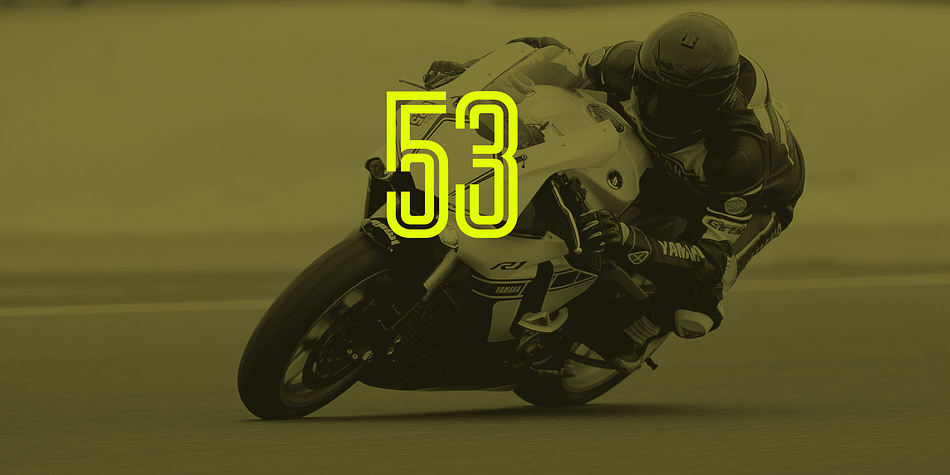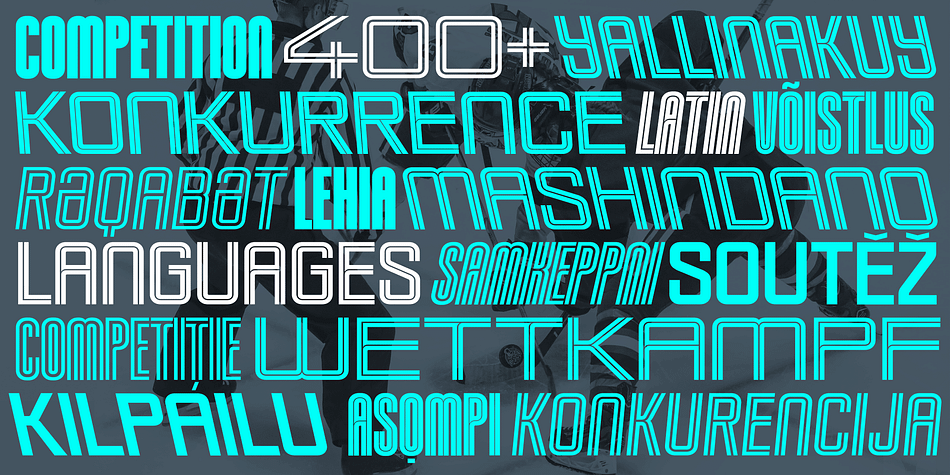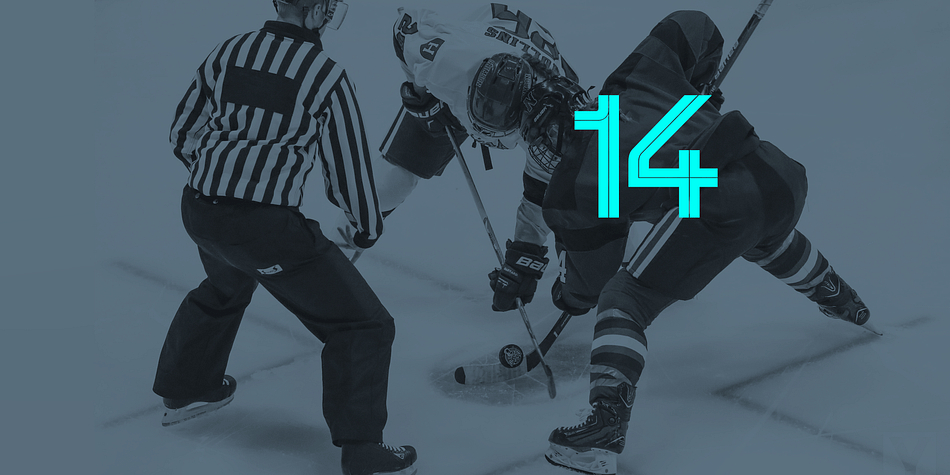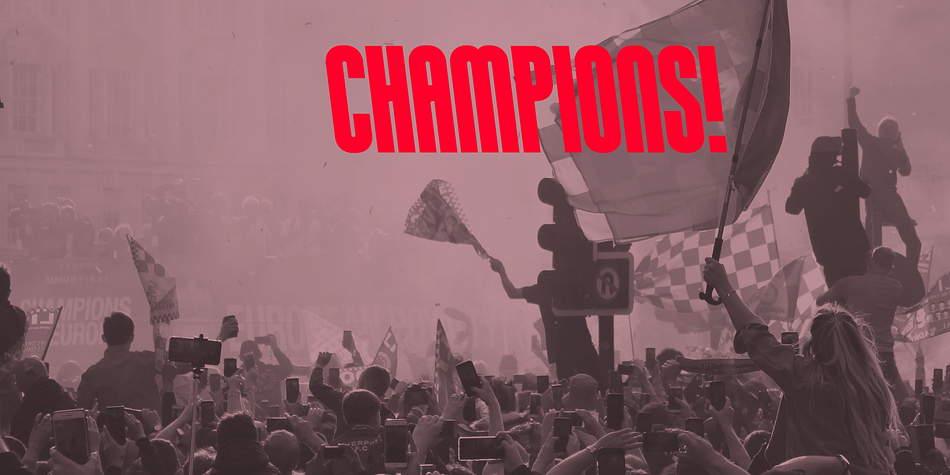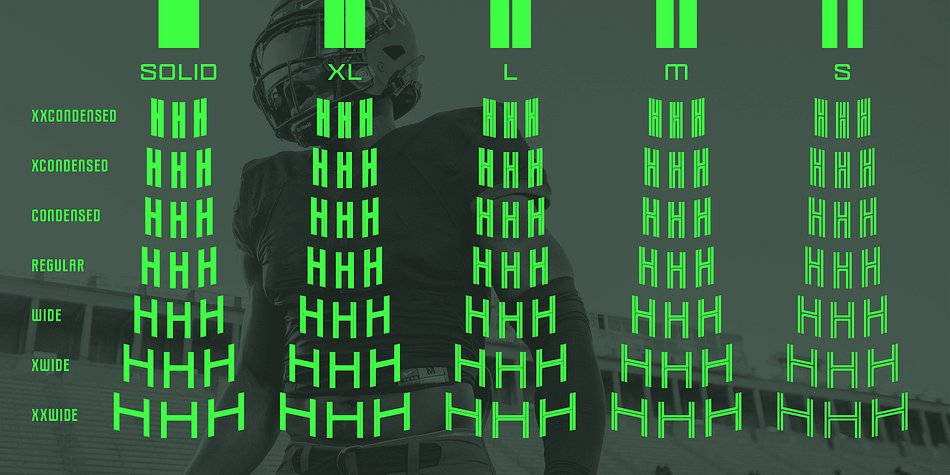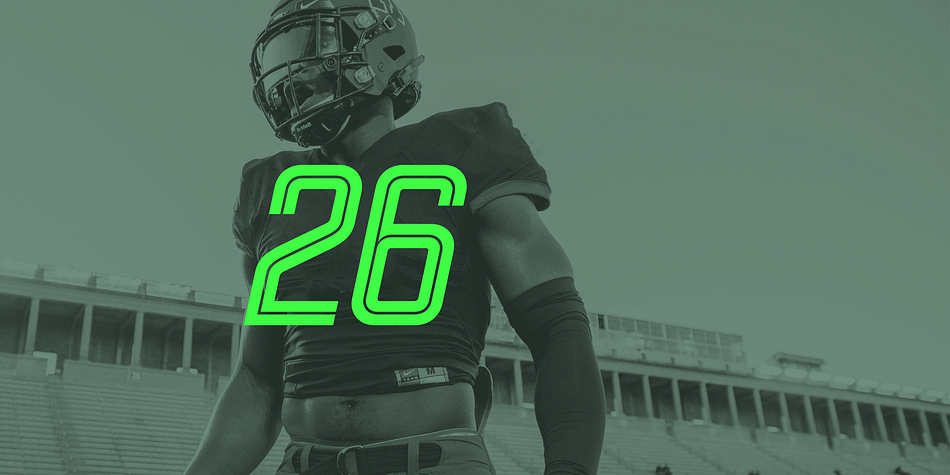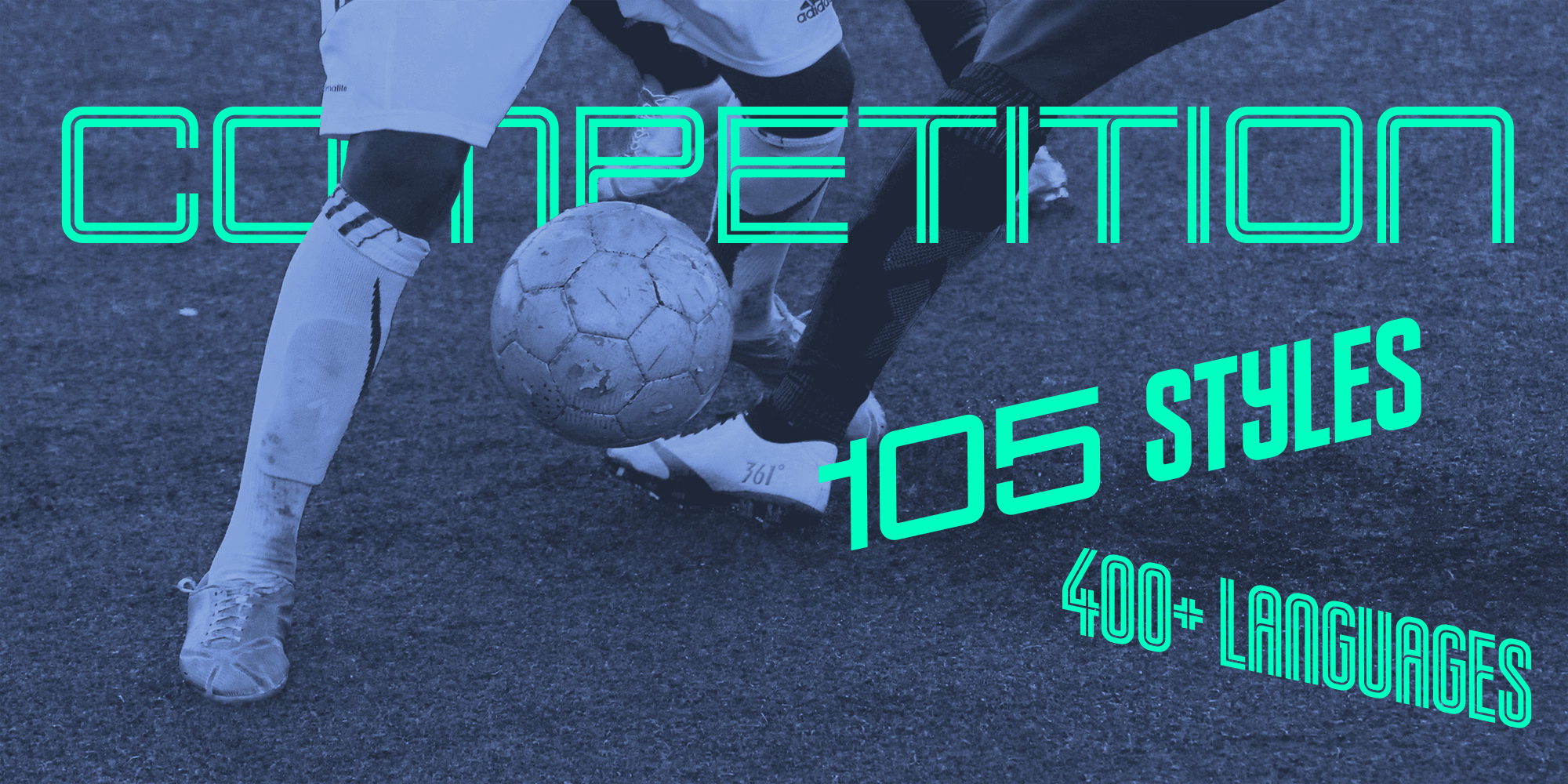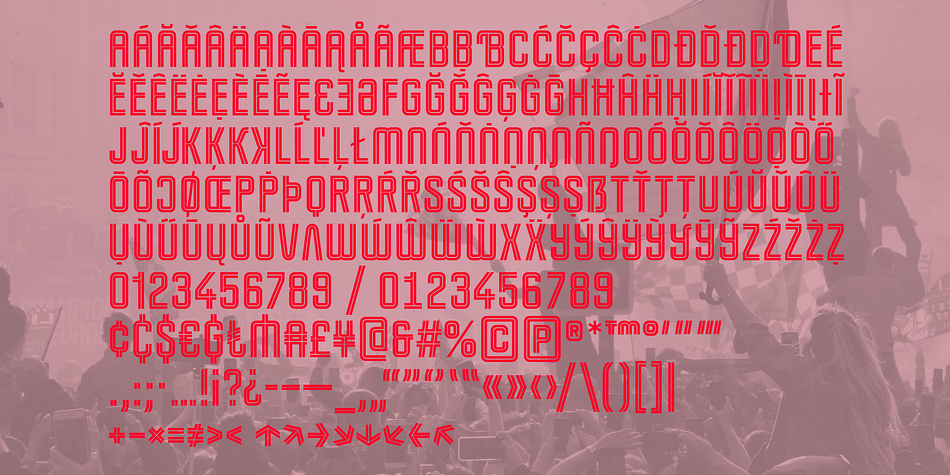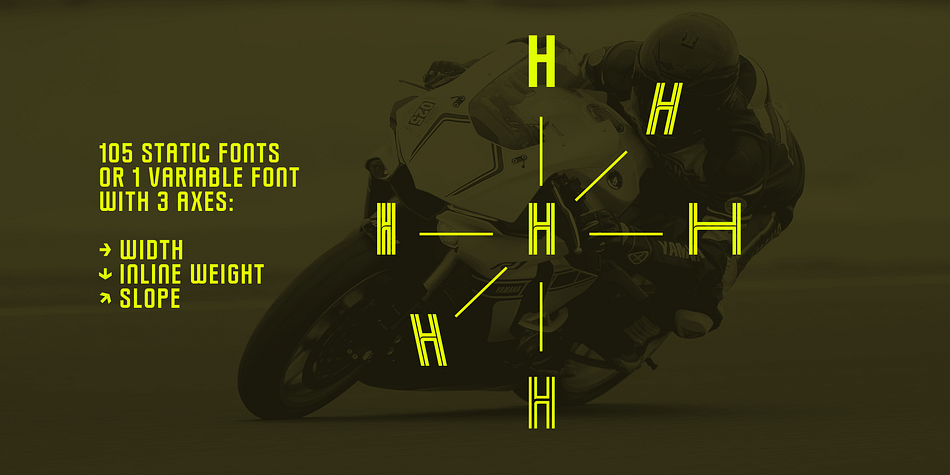
COMPETITION
Designed by Christoph Koeberlin, Competition is a display sans font family. This typeface has one hundred and six styles and was published by sportsfonts.com.
Competition is a state of the art sports typeface.
A large width range, slant angles from –12 to 12, and an adjustable inline make it extremely versatile.
It’s devided into 5 subfamilies, from the sizes S, M, L & XL with decreasing inline weights to Solid without an inline at all. (By the way: S doesn’t mean it doesn’t look good in large sizes!)
Choose from 105 predefined styles, or 1 variable font with axes for width, slant and inline weight (which is included in the family package).
Competition embraces the Latin S character set and therefore supports 400+ Latin-based languages.
Go for Gold!